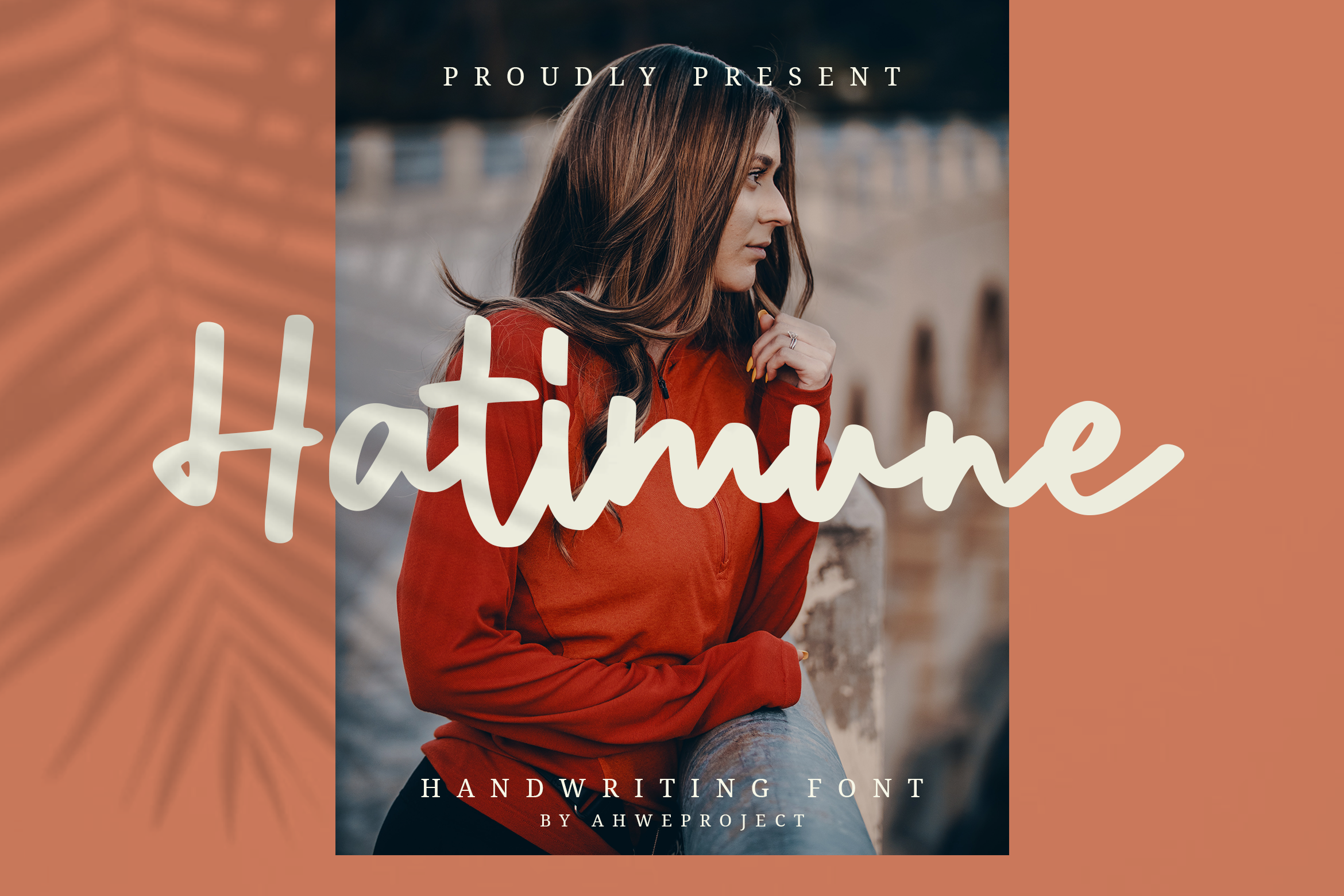
Hatimune - Unique Handwritten Font Font
About Hatimune - Unique Handwritten Font
Hatimune is an unique handwritten font. Whether you’re using it for crafting, digital designing, presentations, or greeting card making, it’s perfect!
Fall in love with its incredibly versatile style and use it to create spectacular designs!